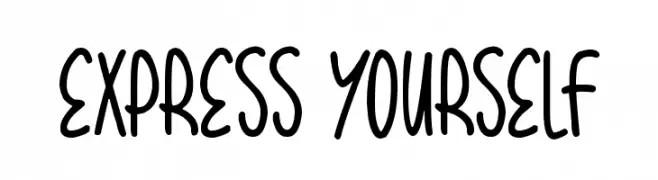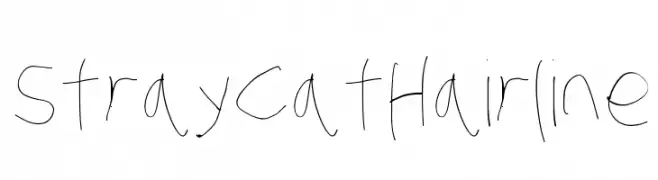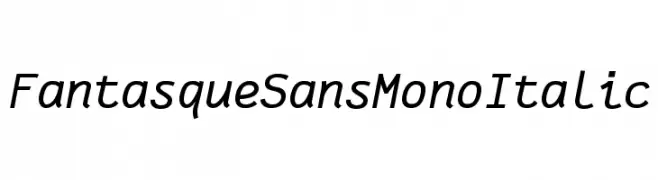
A bold, geometric font with strong lines and modern appeal.
A bold, angular font with a dynamic, forward-leaning slant.
( Darrell Flood )
A playful, handwritten font with tall, narrow letters and consistent stroke width.
( Fonts by Rajesh Kumar )
A bold, angular font with a geometric, hand-drawn style.
A whimsical and playful font with curly, flowing letterforms.
A monospaced, italic font with a playful and modern style.
A bold, futuristic font with a three-dimensional, geometric design.
A classic, elegant script font with flowing, cursive letters and intricate flourishes.